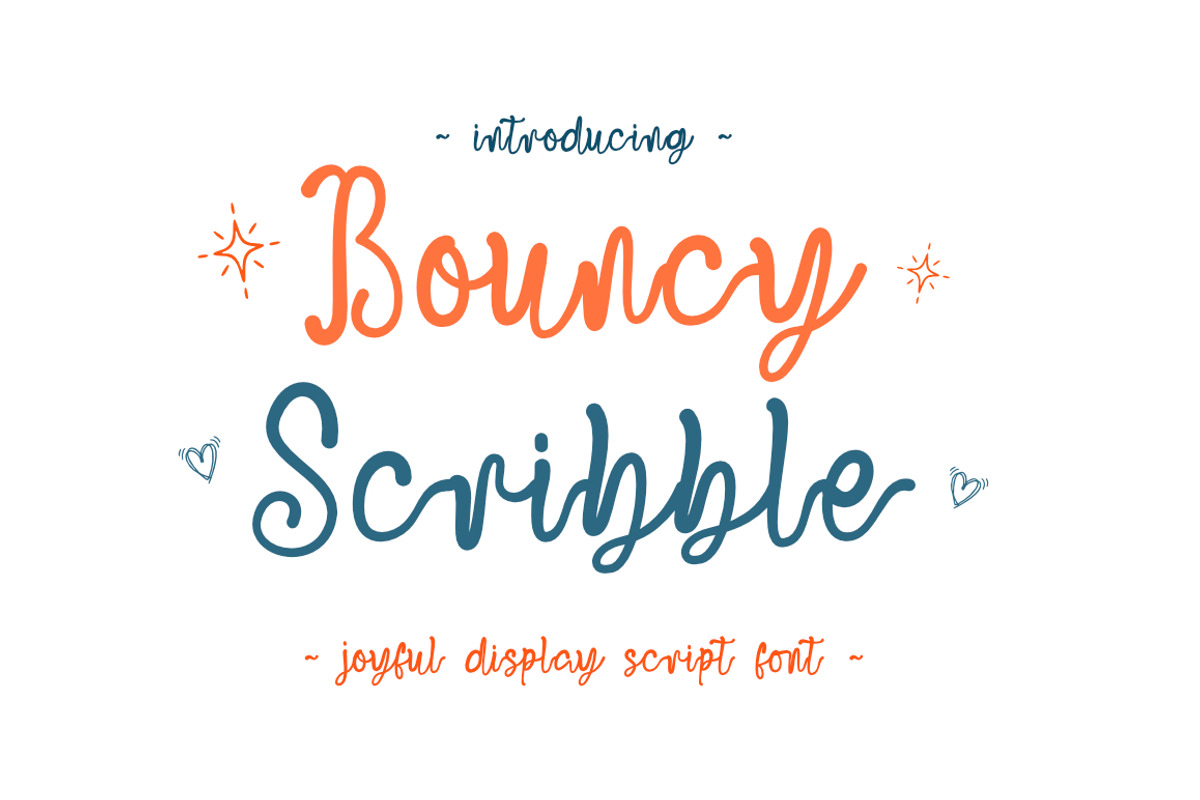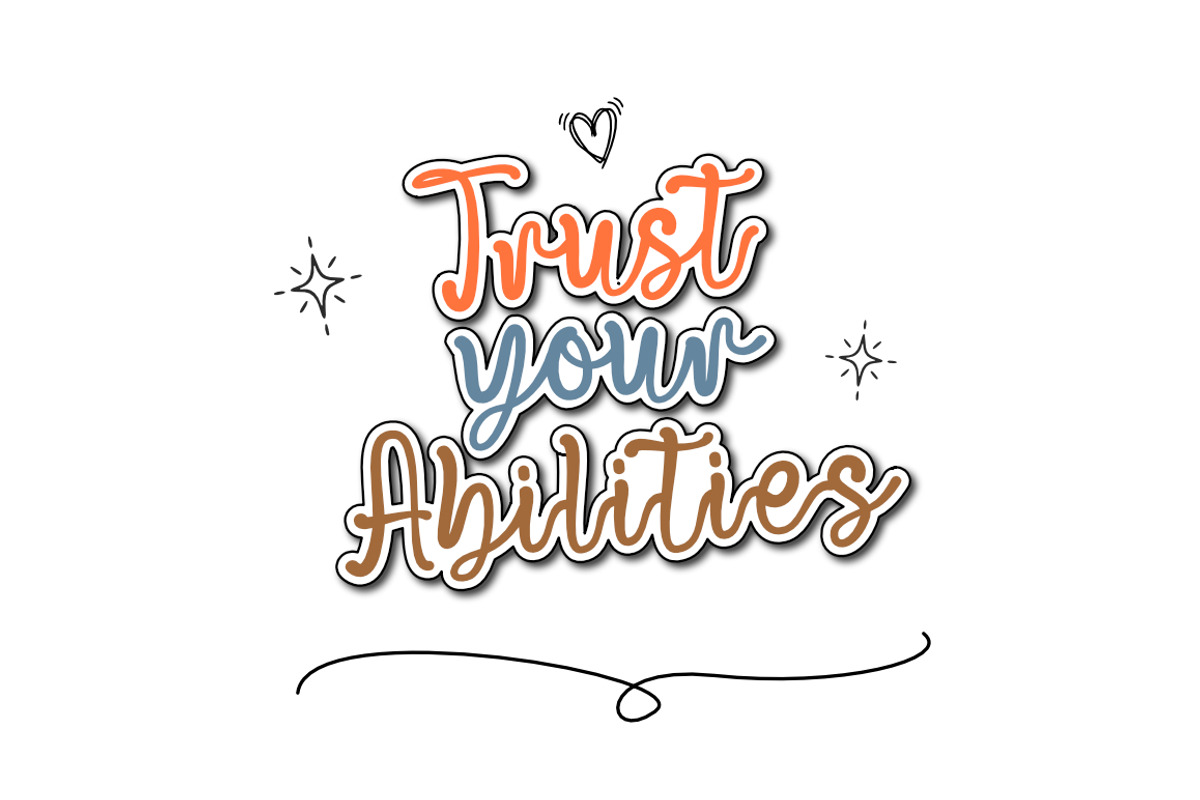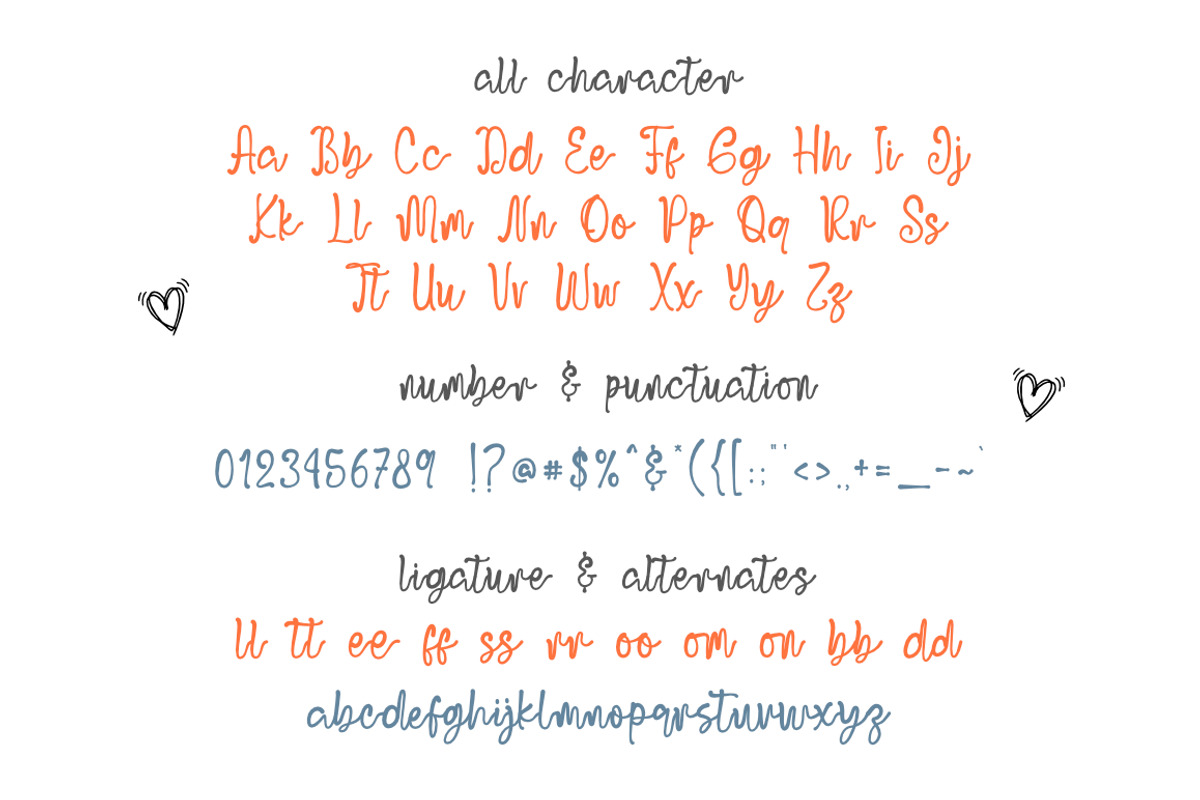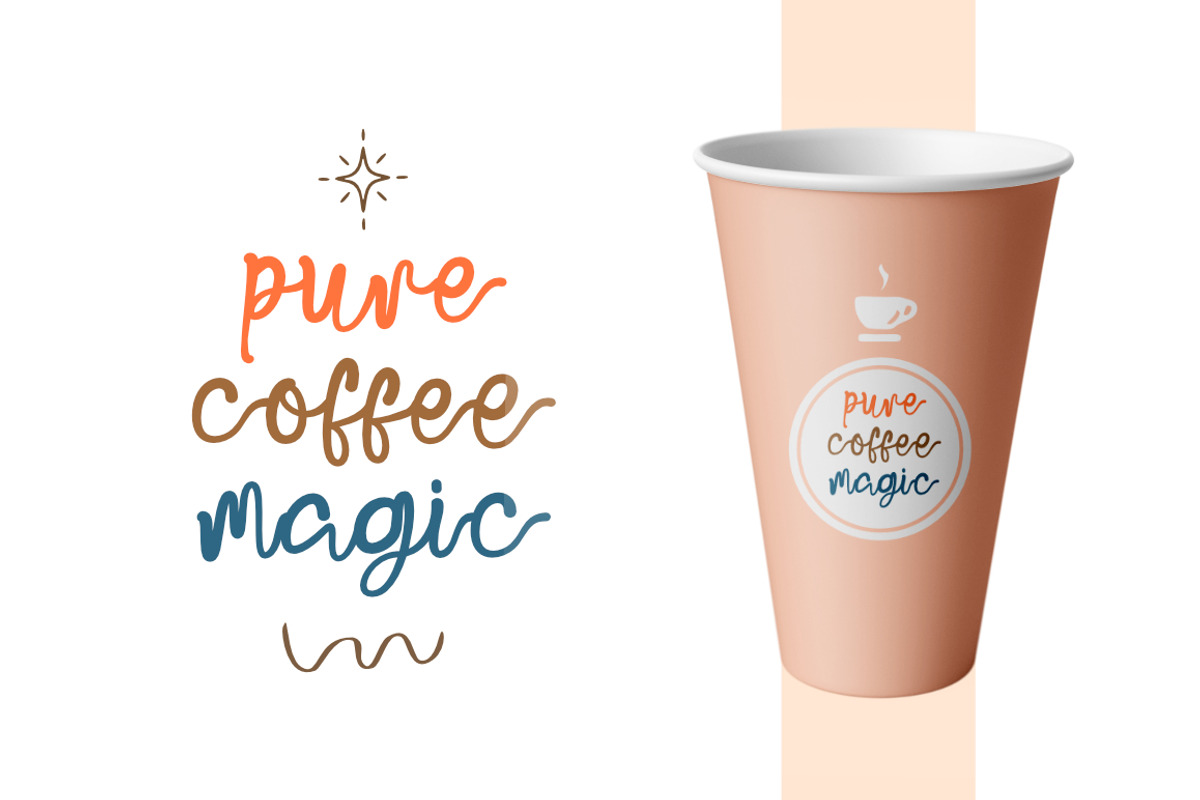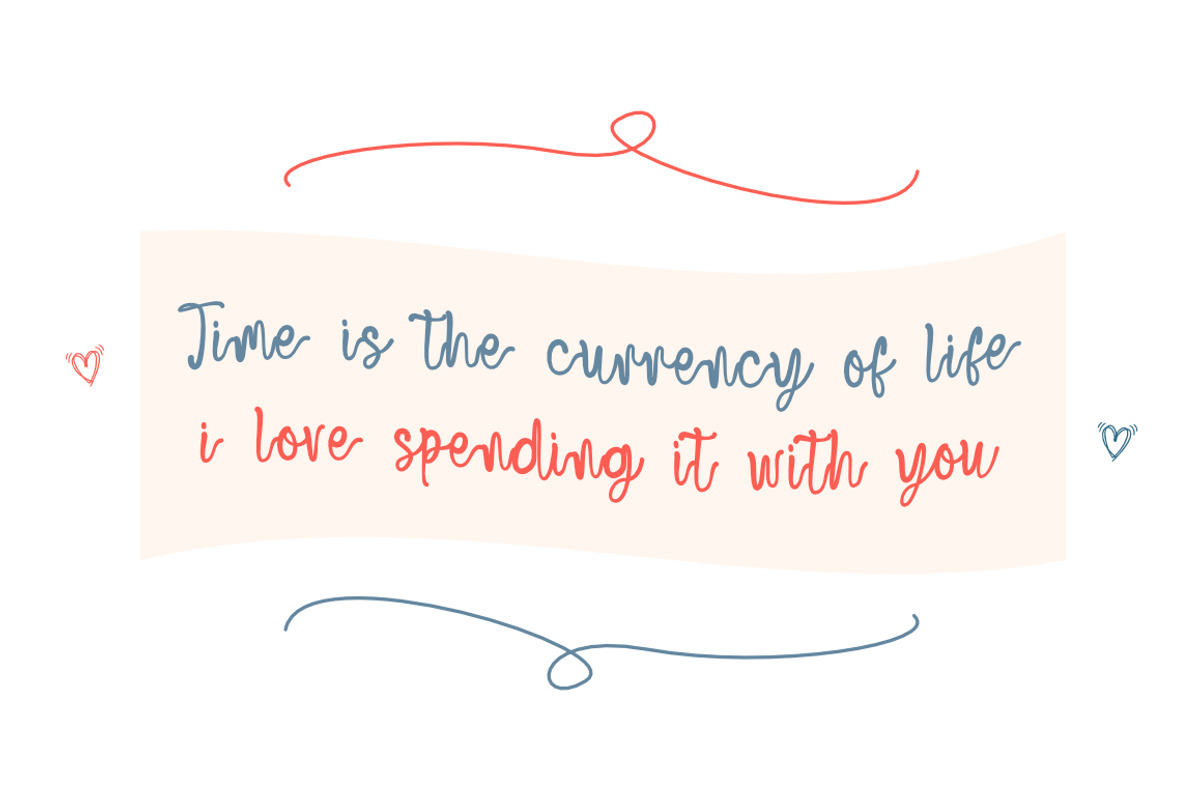
Bouncy Scribble Fonts
Introducing Bouncy Scribble Font
Add a touch of joy and energy to your designs with Bouncy Scribble, a delightful handwritten script font that feels both organic and modern. Designed with a bouncy baseline and consistent, fluid strokes.
Whether you are crafting social media quotes, designing trendy apparel, logo, branding or looking for the perfect font for your next DIY craft project, Bouncy Scribble offers the perfect balance of whimsy and legibility. It’s built with clean, smooth curves, making it an excellent choice for cutting machines like Cricut and Silhouette, as well as digital lettering.
Ligature
Stylistic Alternate
Support Multilingual Languange